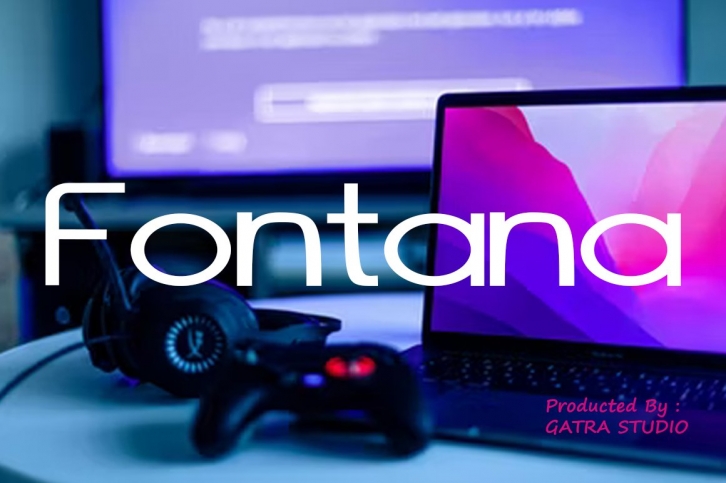
ana is a gorgeous font that was realeased on April 27, 2022. The font can be used in many style contexts and design environments. Perfect for invitations, magazines, websites, logos, and more! It was designed by Gatra Std and the file size is 17.88 MB. Thanks for checking out this font!